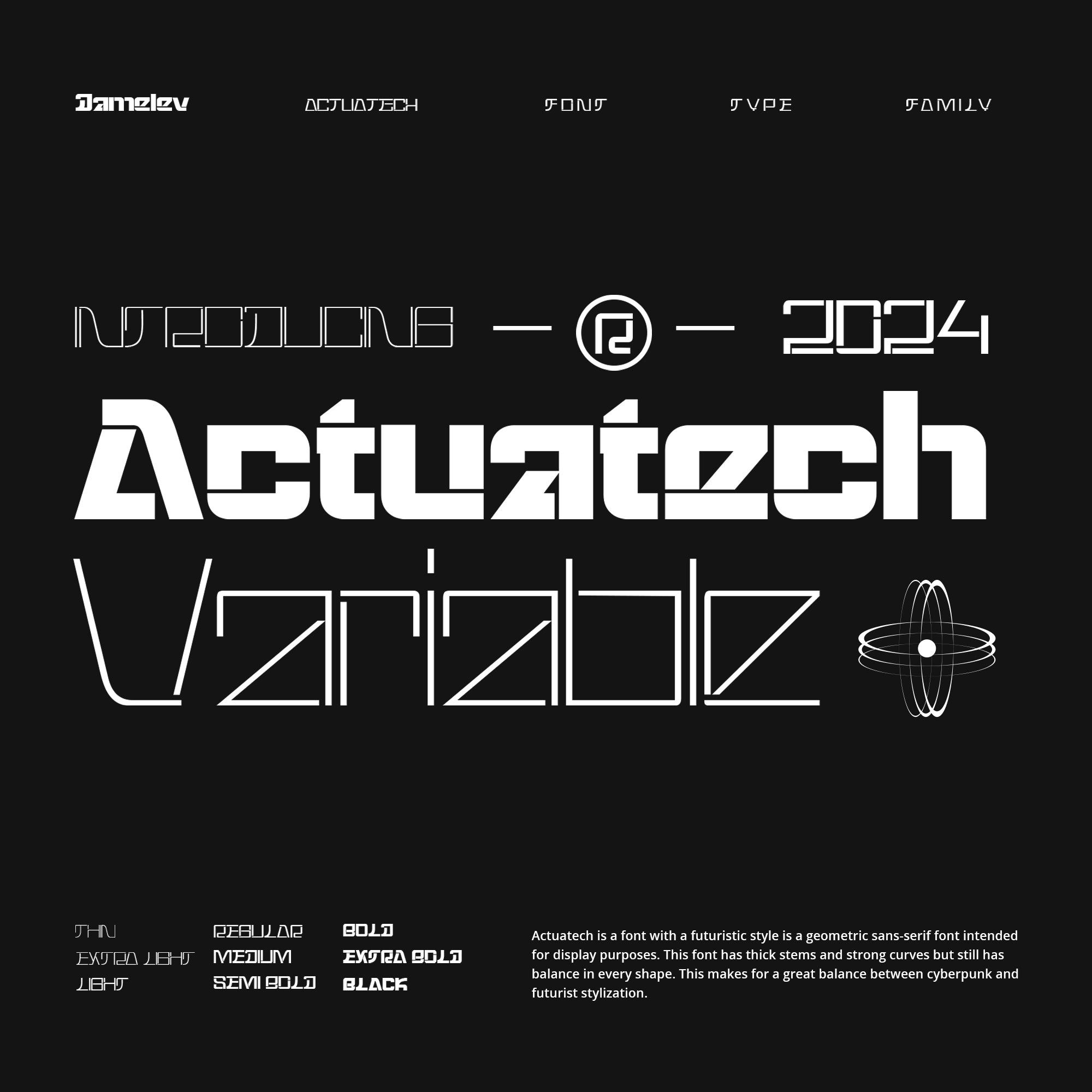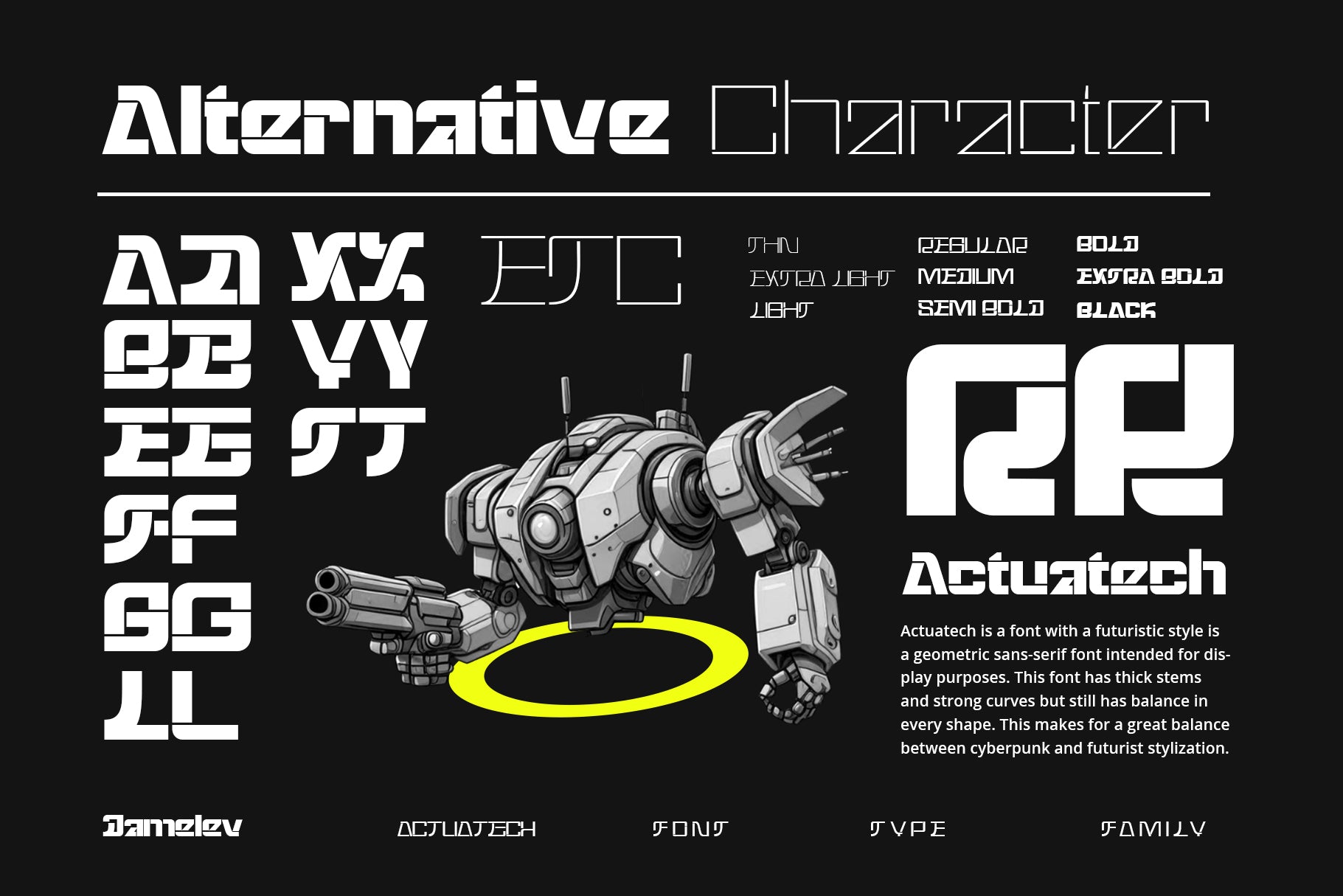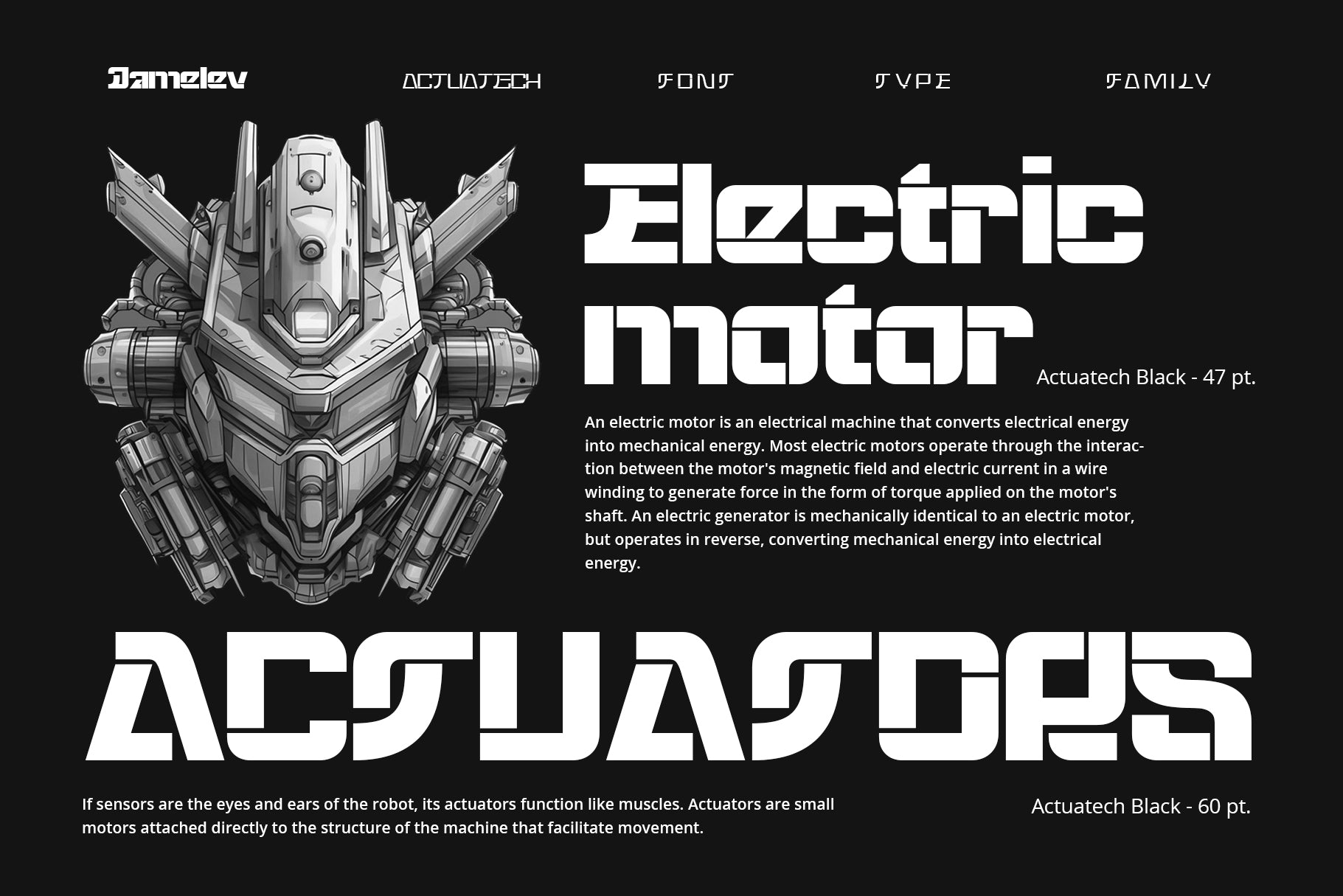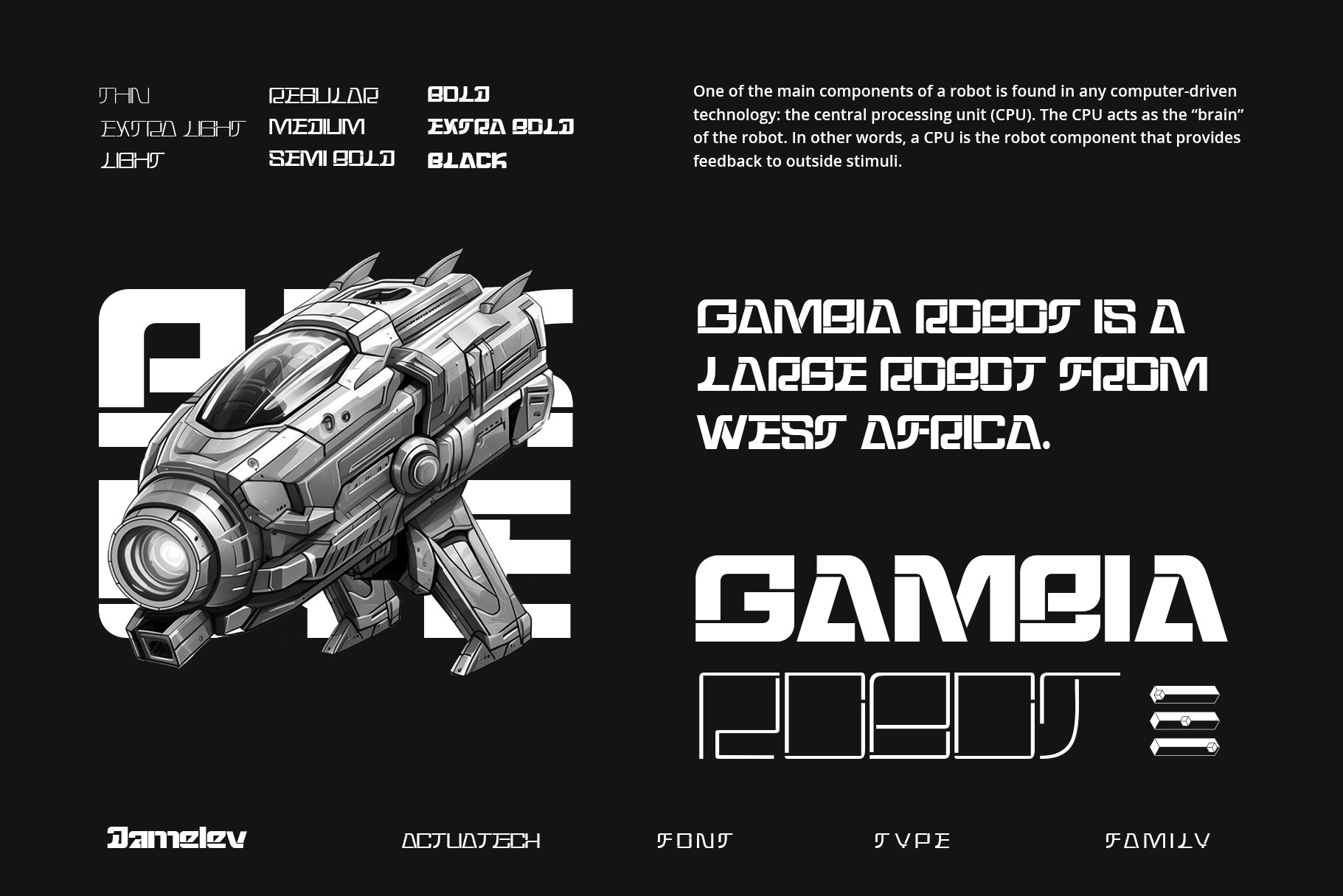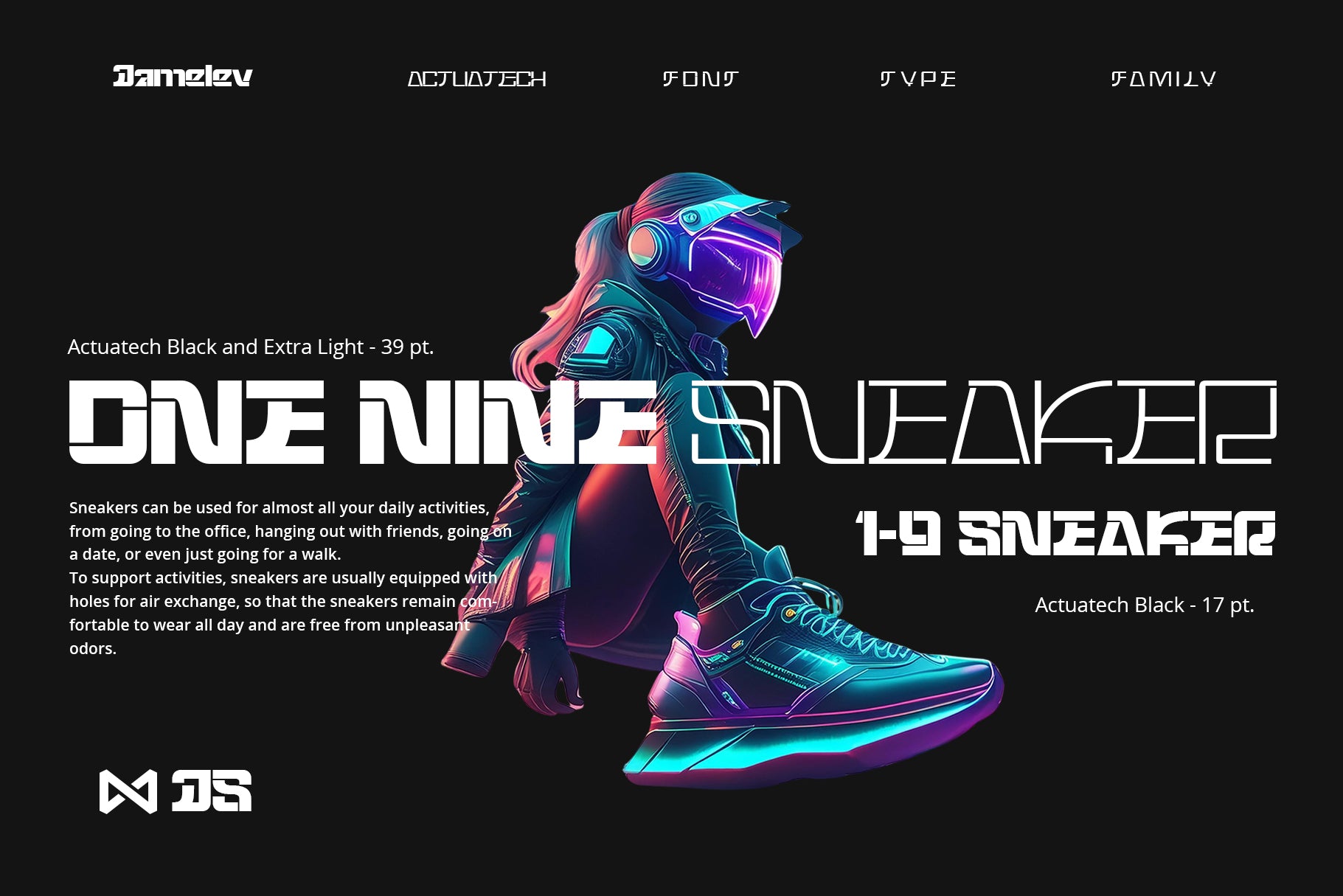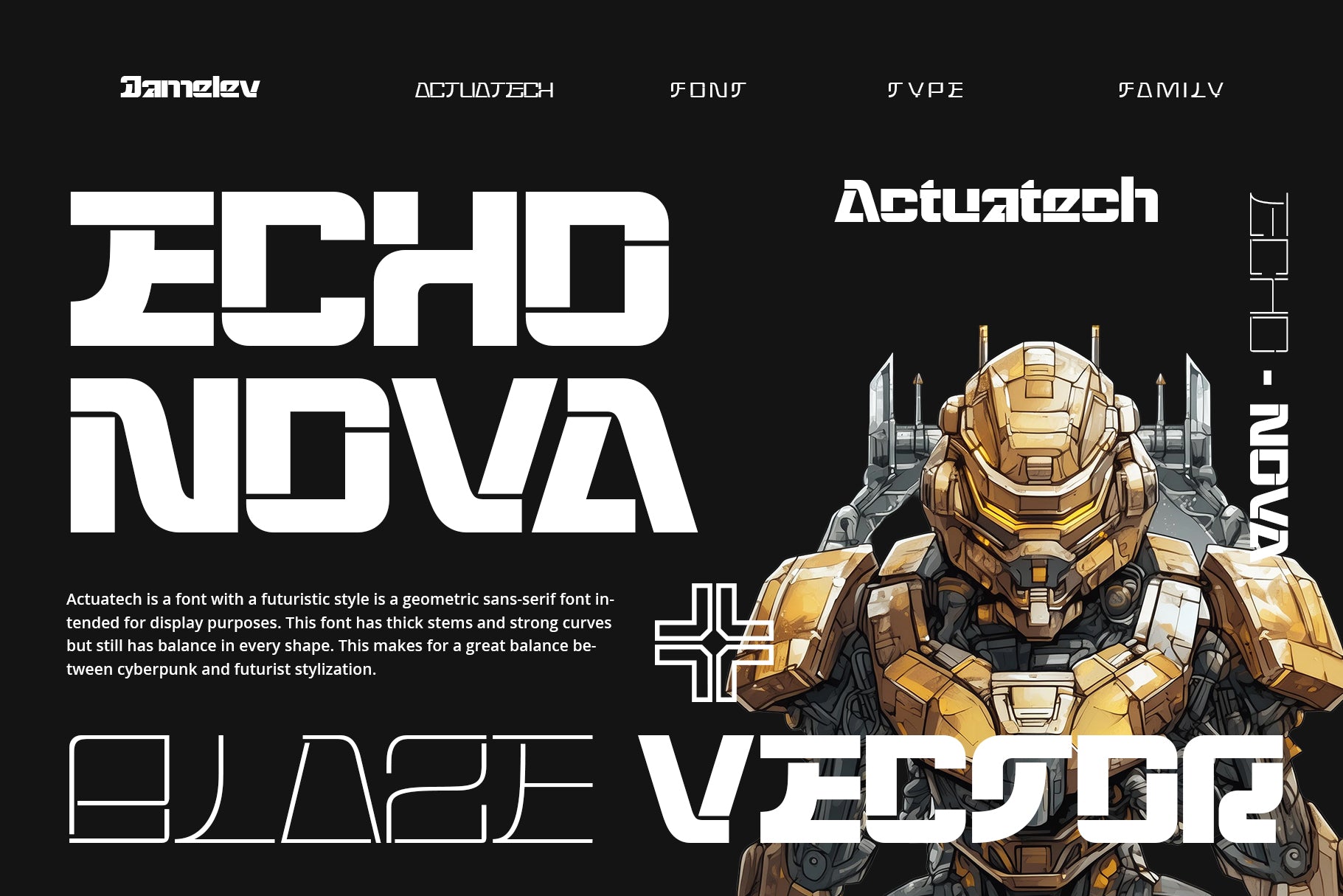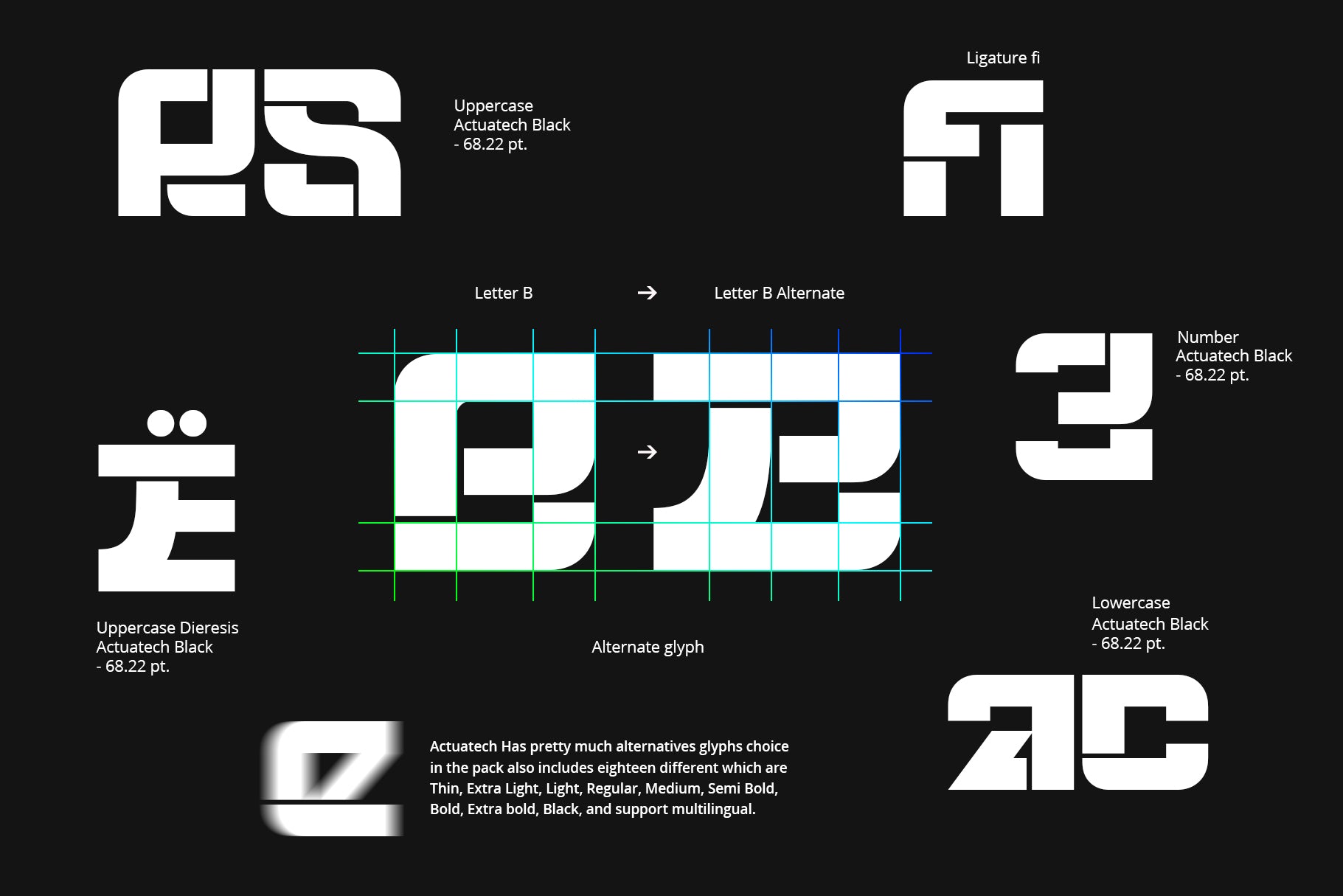
Actuatech Variable Font
The Actuatech Variable Font is a geometric sans-serif typeface designed for display purposes, featuring a futuristic style with thick stems and strong curves. It includes eight weights (Thin, Extra Light, Light, Regular, Medium, Semi Bold, Bold, and Black) and offers a variety of alternative glyphs, supporting multilingual text.